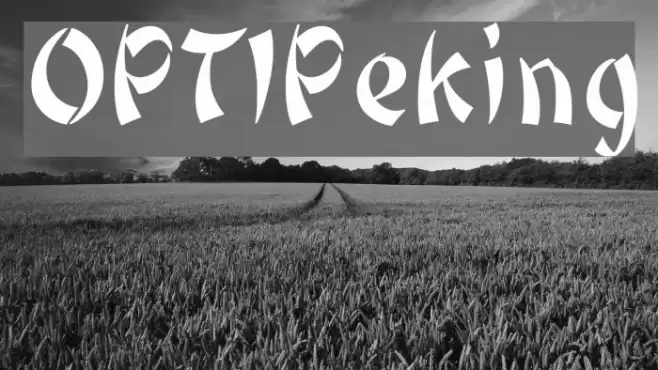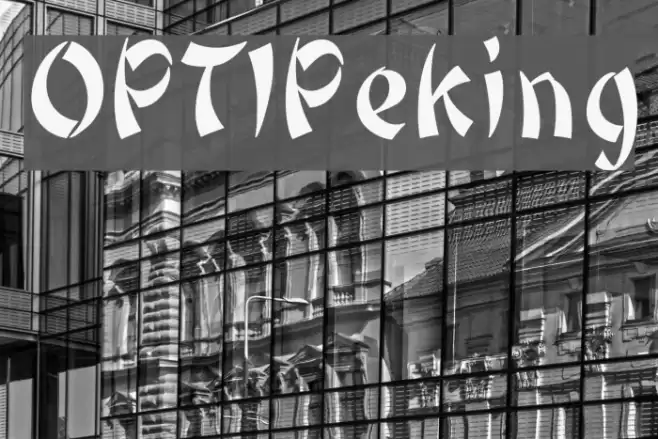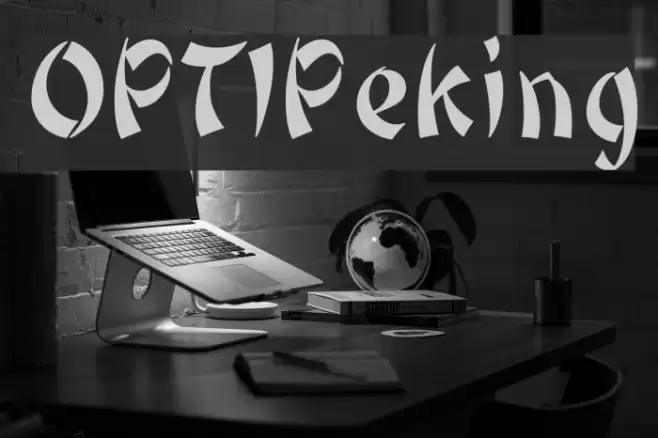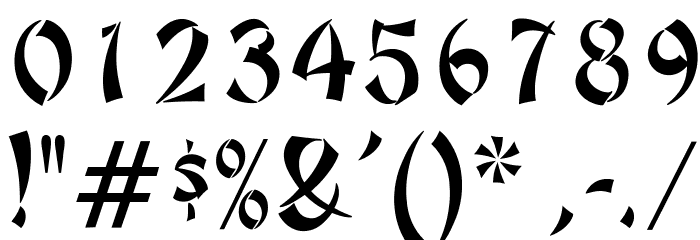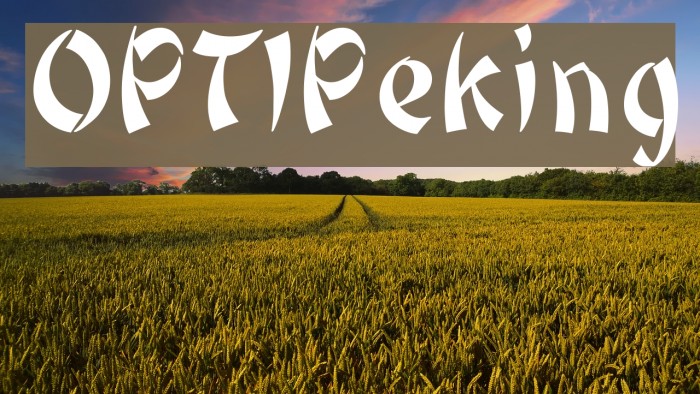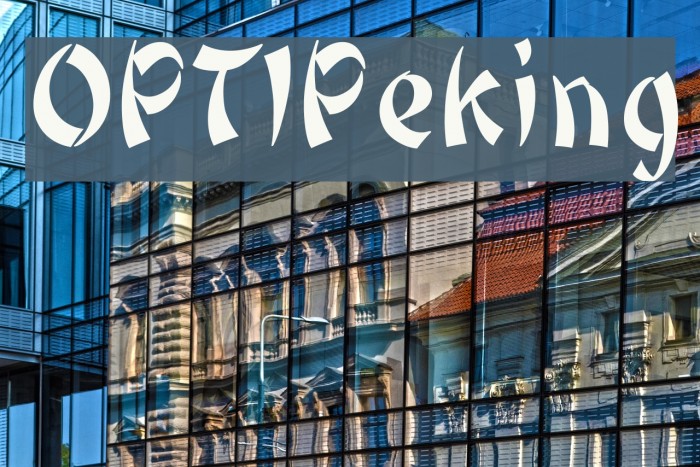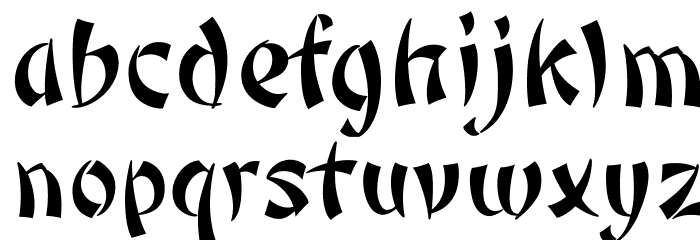
OPTIPeking Font
OPTIPeking Description
This font features a bold and dynamic style with sharp, angular strokes that give it a distinctive and dramatic appearance. The characters are designed with a high contrast between thick and thin lines, creating a striking visual impact. The uppercase letters are particularly bold, while the lowercase letters maintain a consistent style with slightly more fluidity. The numerals and special characters follow the same design principles, ensuring a cohesive look across all glyphs. This font's unique style is reminiscent of traditional calligraphy, yet it maintains a modern edge, making it suitable for a variety of creative applications.
A bold, high-contrast font with sharp, angular strokes and a calligraphic influence from Uncategorized fonts.
- Proposed Projects: Ideal for branding, posters, headlines, and any project requiring a dramatic and eye-catching typeface.